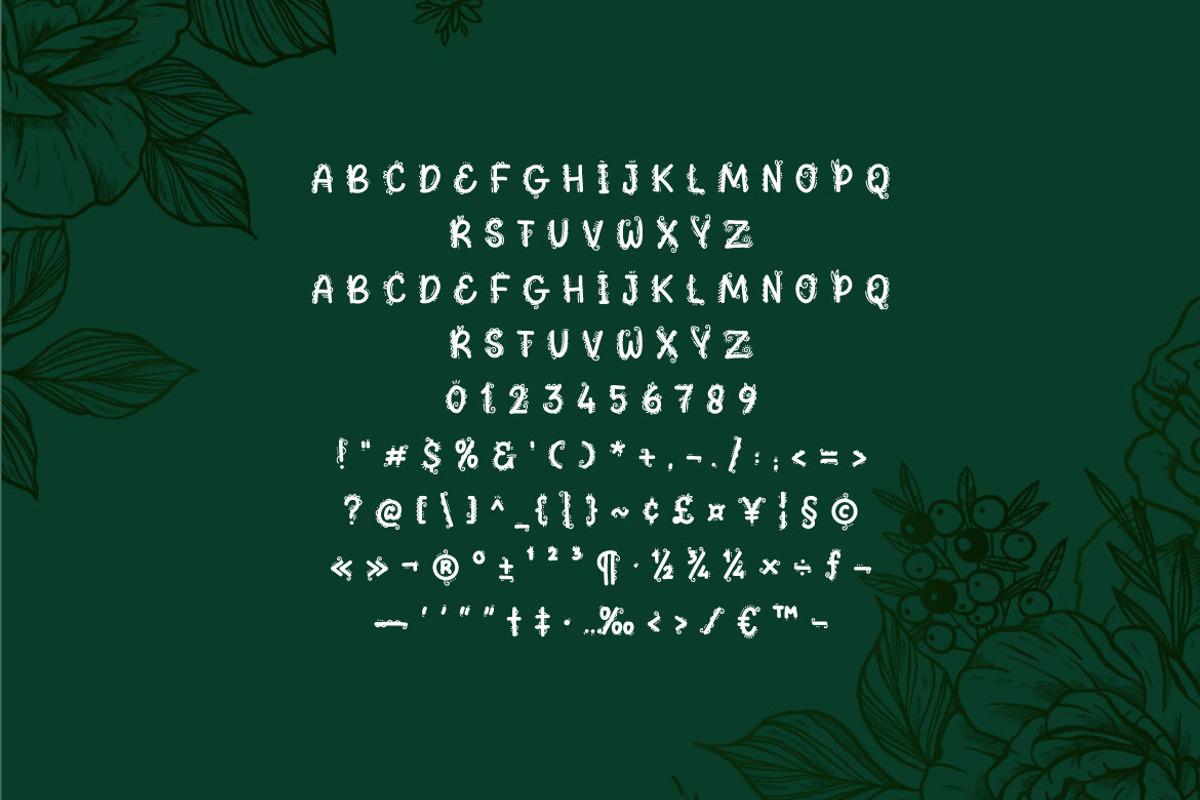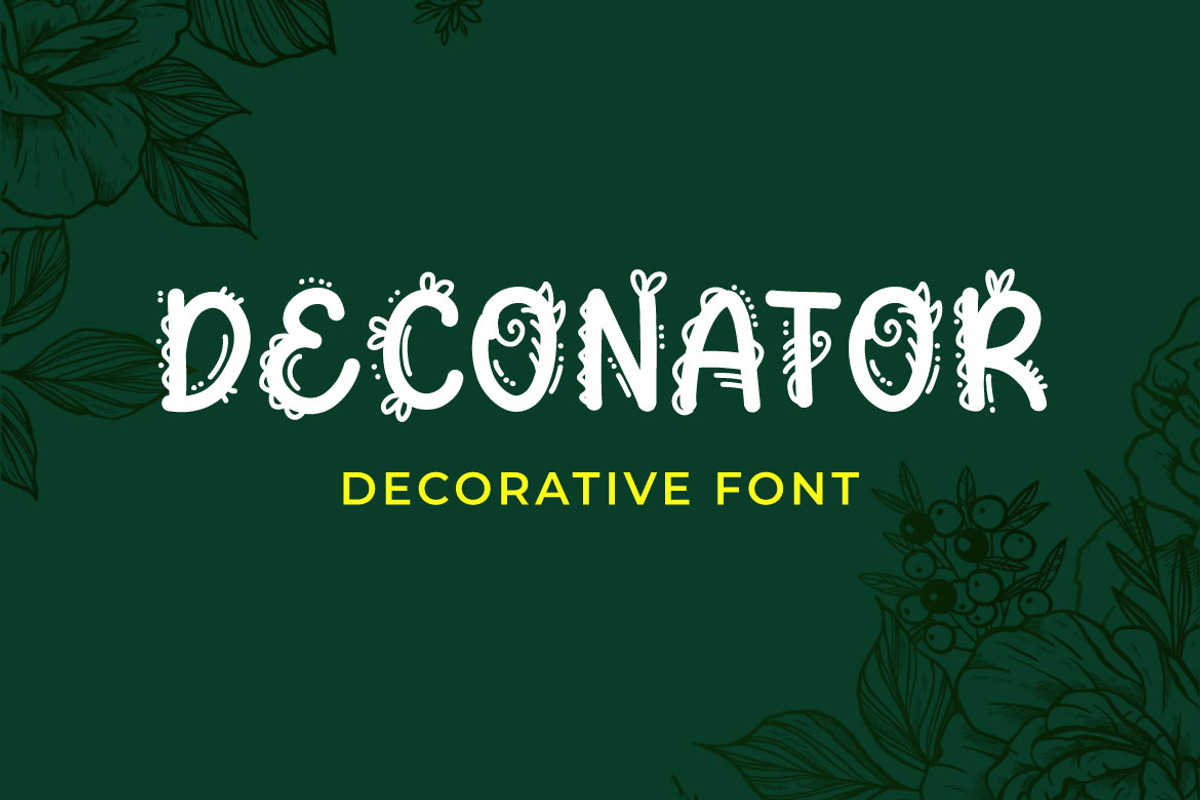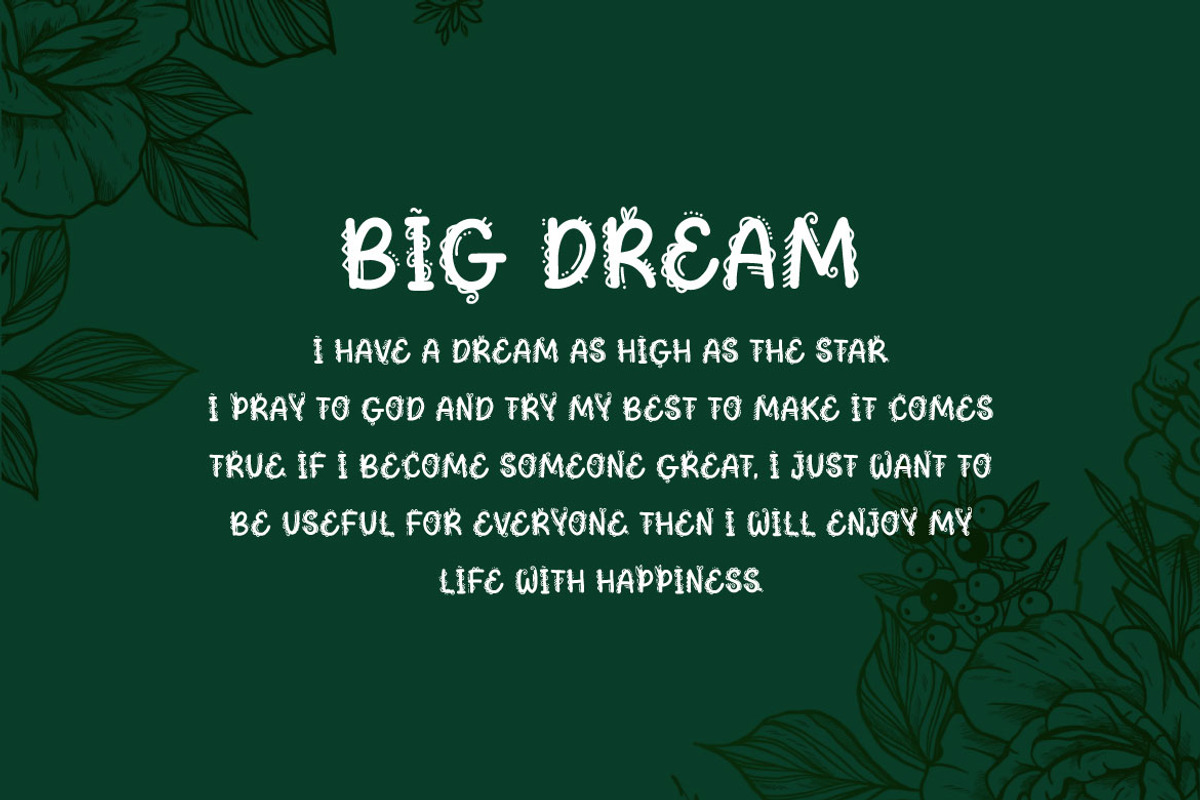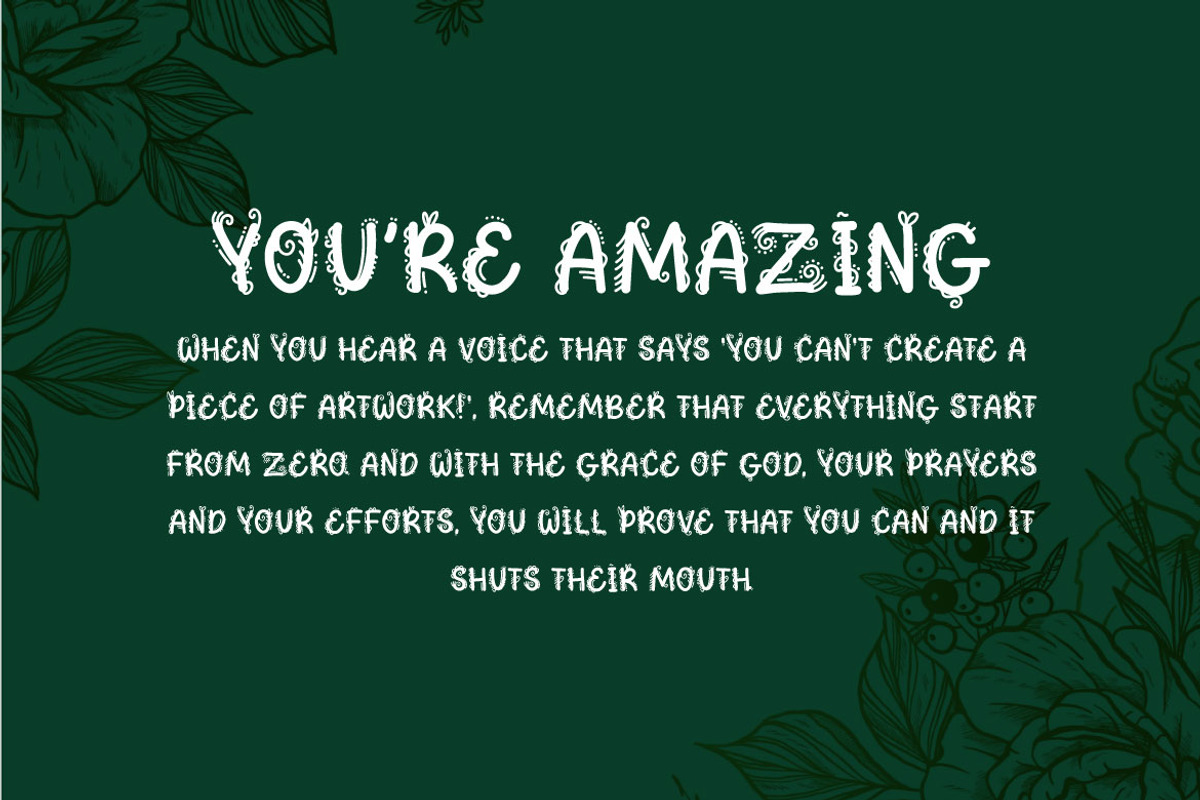
Deconator - Decorative Font
Introducing Deconator — a breathtaking decorative display font that will elevate your design projects to new heights. With its elegant and intricate details, Aurora Script is the perfect choice for adding a touch of sophistication and charm to any creative endeavor.
Crafted with precision and care, each letter of Deconator exudes a sense of grace and beauty. Its fluid strokes and delicate curves create a sense of movement and rhythm, captivating the viewer's attention from the very first glance. Whether you're designing wedding invitations, branding materials, or decorative signage, Deconator will infuse your projects with a timeless elegance.
So why wait? Elevate your design projects to new heights with Deconator — the decorative display font that combines beauty, versatility, and sophistication in one stunning package. Download it today and let your creativity soar.